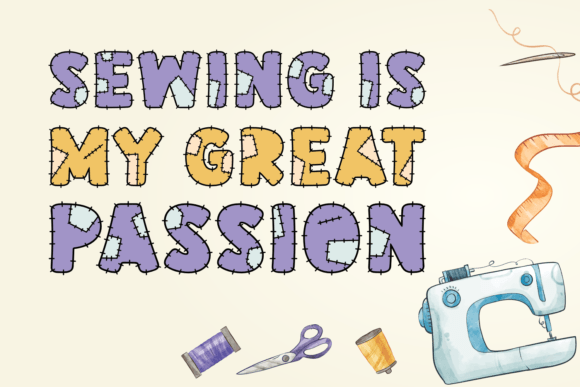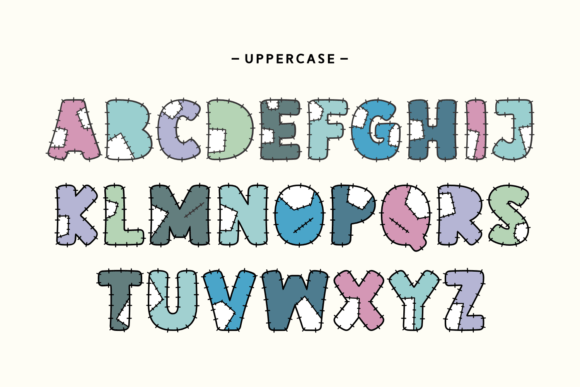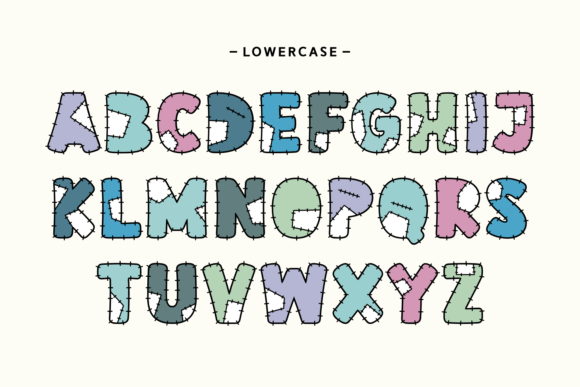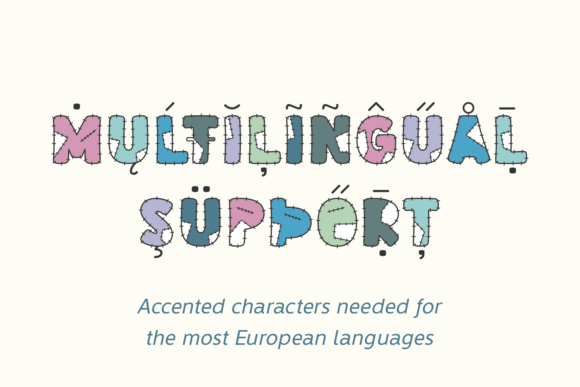
Introduction to Sewing Clothes Font
Do you remember the thrill of rummaging through your grandmother’s sewing box, discovering hidden treasures like colorful threads, buttons, and patches? For many crafters, these moments spark the idea for their next creative project. And that’s exactly what the Sewing Clothes Font is all about – infusing your designs with a dash of whimsy and charm.
As a designer, you’re always on the lookout for unique design resources that can elevate your work. The Sewing Clothes Font is a game-changer, offering a high-quality, transparent background, and a range of stylish characters that are sure to captivate your audience. And the best part? It’s available as a free download, making it an instant favorite among designers and crafters alike.
Key Features of Sewing Clothes Font
- High-quality design resource for creative projects, ideal for sewing enthusiasts and fashion designers.
- Unique characteristics include intricate stitch details and fashionable clothing designs, making it a valuable addition to any design collection.
- Perfect for use in sewing patterns, fashion designs, and other creative projects where a high-quality, customizable font is required.
Honest Review: Sewing Clothes Font
I recently had the chance to work with the Sewing Clothes Font, and I must say it’s been a game-changer for my design projects. This font is perfect for any creative project that requires a touch of whimsy and style.
- High quality design that looks great on any background, including transparent background options for easy layering.
- Wide range of sewing-related icons and graphics, making it an excellent design resource.
- Some of the graphics may be a bit too pixelated for high-resolution designs.
- The font library is not as extensive as some other design resources, which may limit its versatility.
Overall, I’m thoroughly impressed with the Sewing Clothes Font. It’s a great addition to any designer’s toolkit, especially for those working on sewing-themed projects. While it may not be perfect, its unique style and free download make it a valuable resource for any creative project.
Sewing Clothes Font
The Sewing Clothes Font is a high-quality design resource perfect for creatives working on sewing-related projects. This free download comes with a transparent background, making it easy to integrate into various design platforms.
The Sewing Clothes Font is commonly used in sewing-related projects, such as:
- Sewing patterns and tutorials
- Sewing blogs and websites
- Sewing-themed social media graphics